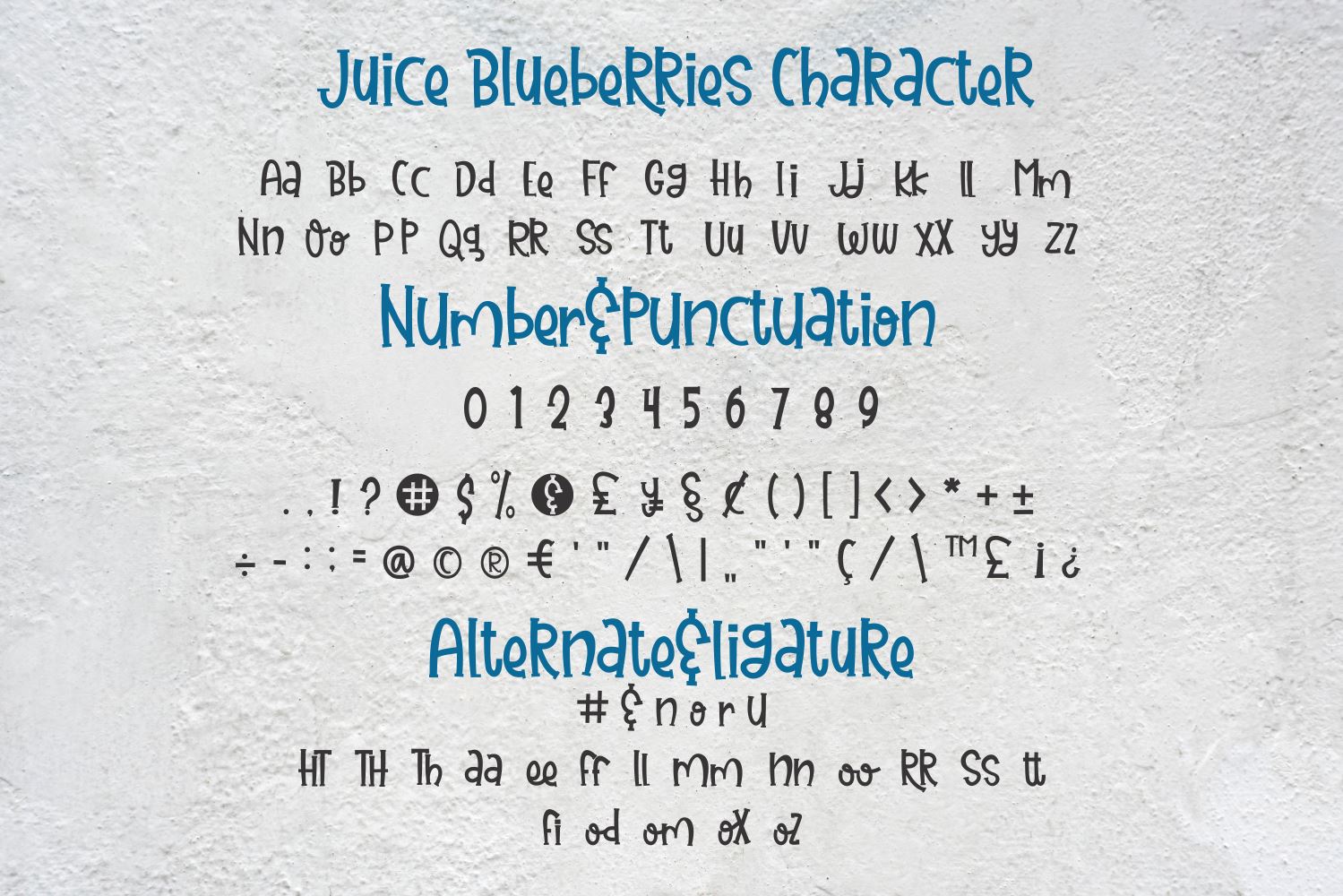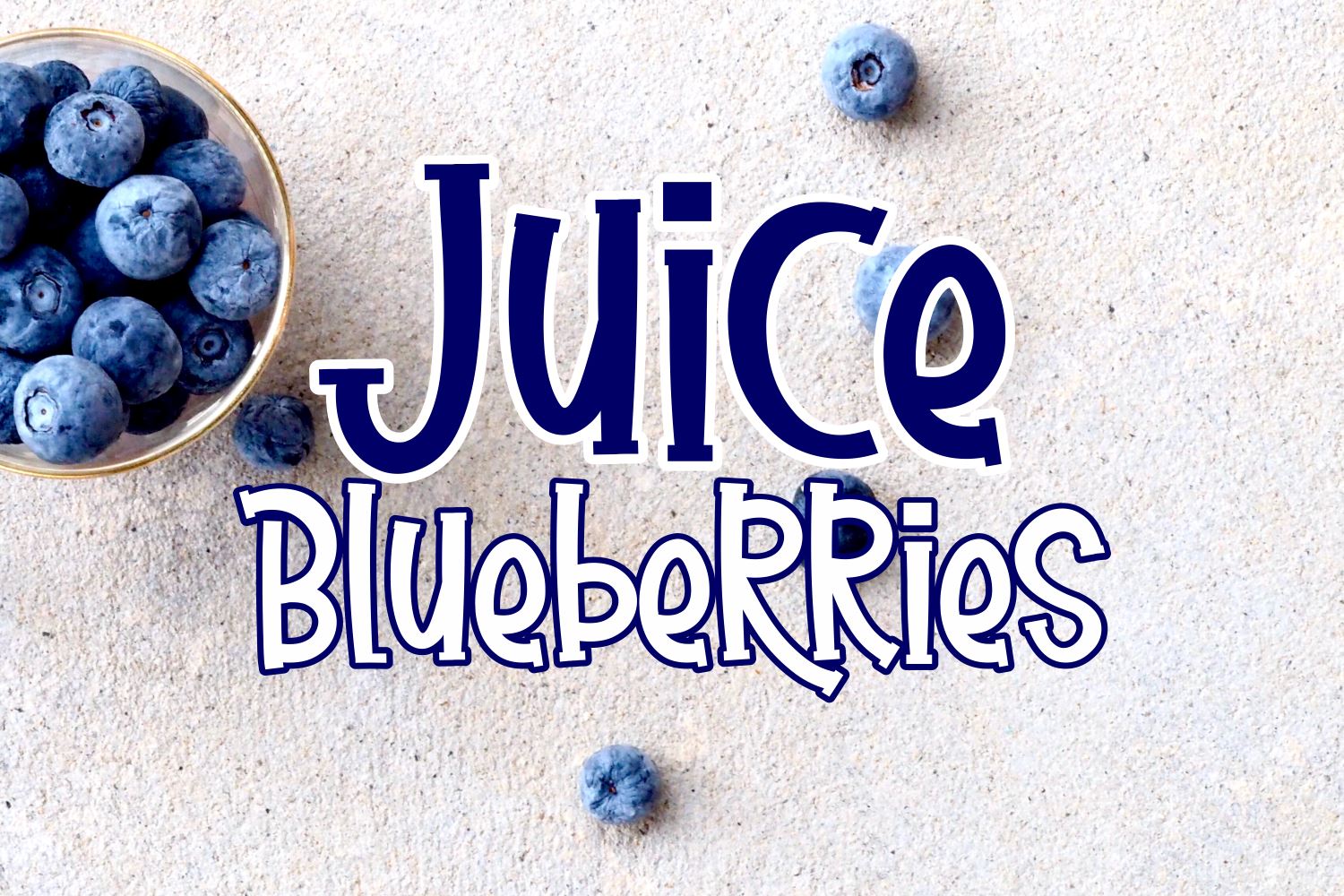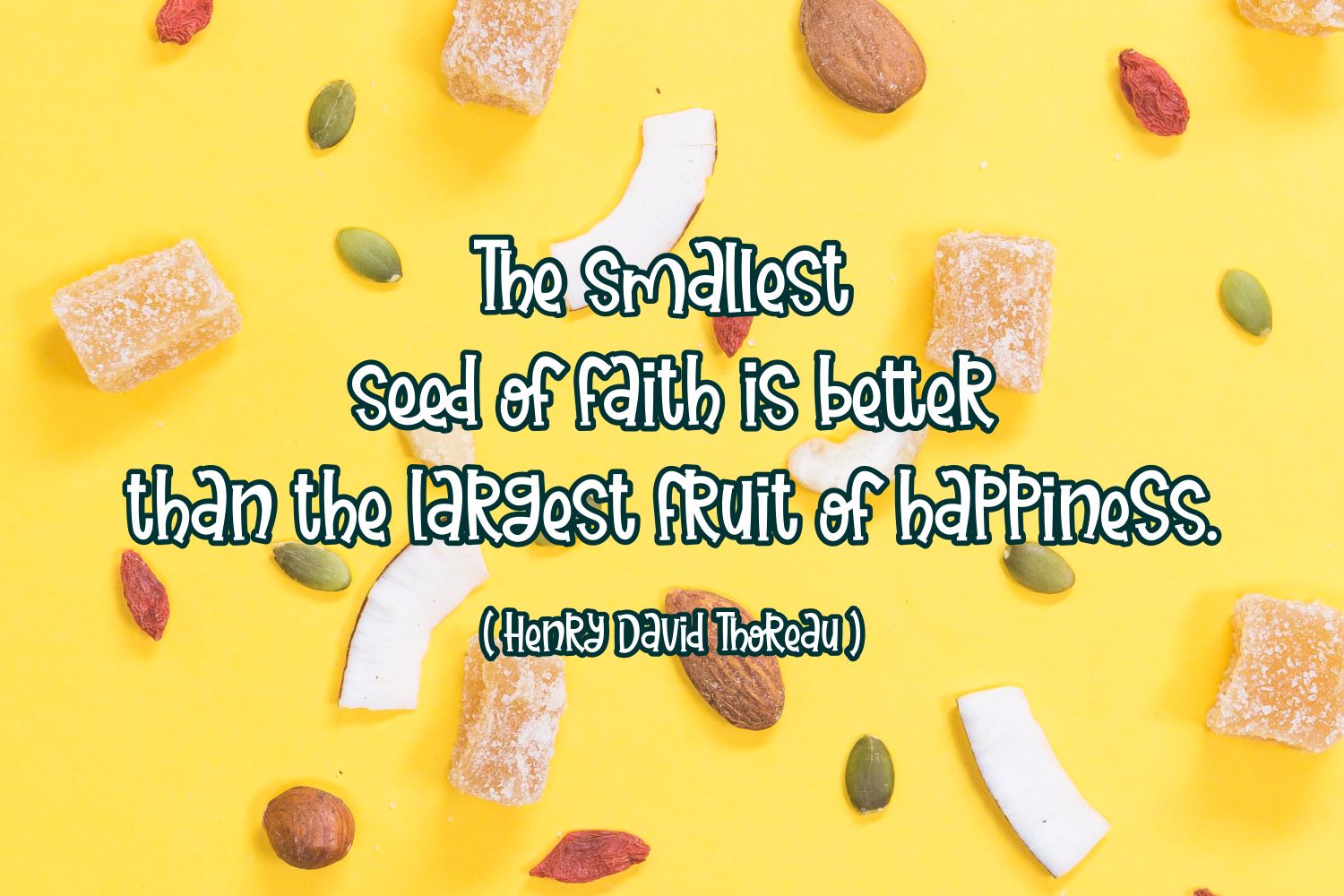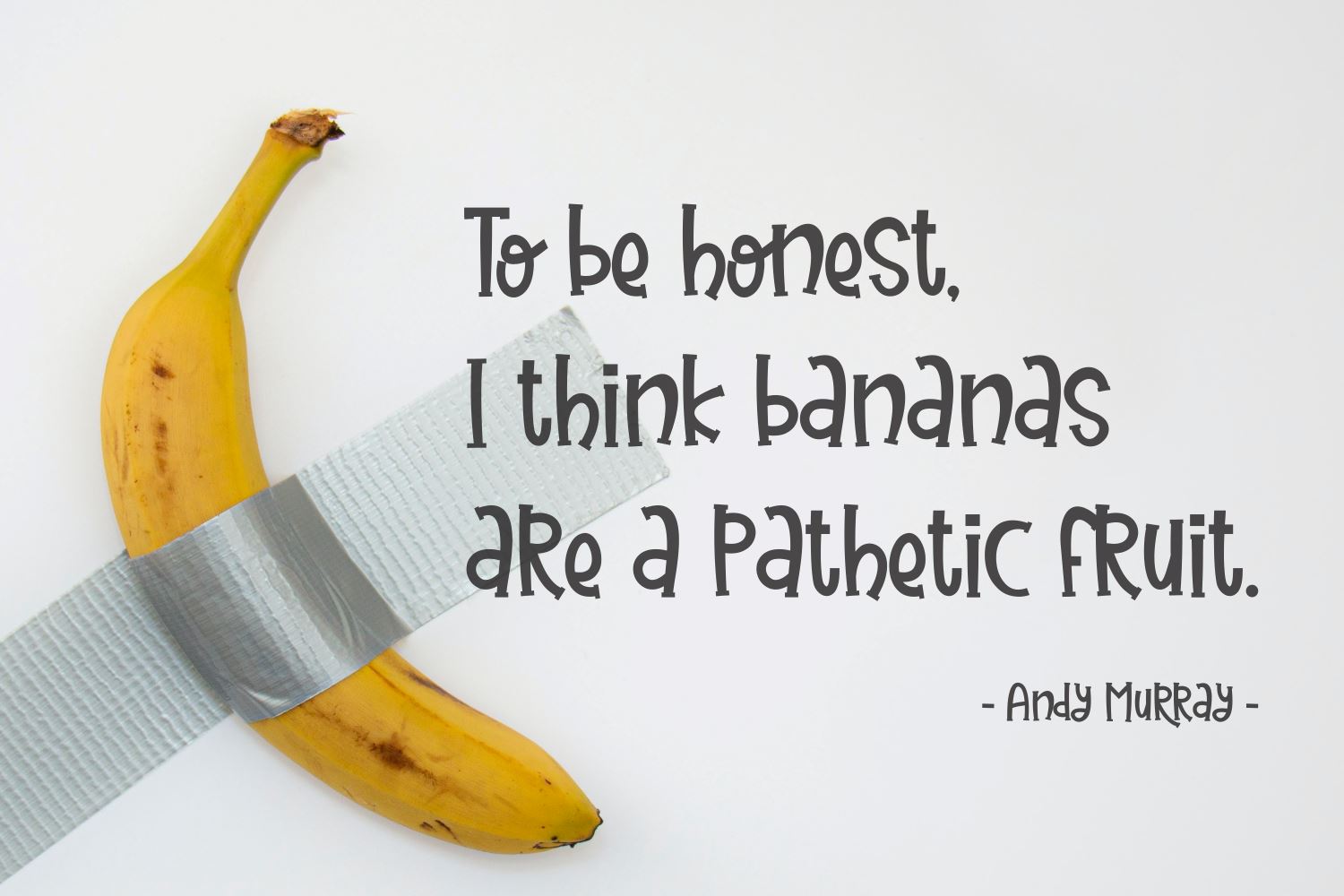
HomeScript FontsJuice Blueberries Script Fonts Juice Blueberries FacebookXPinterestWhatsApp 1 of 4 ... ... ... ... About Juice Blueberries feels enchanting and authentic. Use this gorgeous and unique display to bring any DIY project to life! DOWNLOAD NOW People also explored Charmel Font A La Carte Font Valentine Memories Font Gifted Font Ballinese Font Qukle Font Wolfstar Font Mosem Font Coffee Winter Font 259 0 TagsJuice Blueberries Previous articleHey GirlsNext articleThe Lady Bear LEAVE A REPLY Cancel reply Comment: Please enter your comment! Name:* Please enter your name here Email:* You have entered an incorrect email address! Please enter your email address here Website: Save my name, email, and website in this browser for the next time I comment. Personal Use Free Historise Personal Use Free Read more about this font Planet Benson 2 Personal Use Free Read more about this font Fakedes Personal Use Free Read more about this font Cokobi Personal Use Free Read more about this font BLOG Best Fonts for YouTube Videos: Make Your Thumbnails Stand Out Best Fonts for YouTube Videos: Make Your Thumbnails Stand Out Choosing the right font can make a massive difference in how your YouTube videos perform.... Fonts That Capture the Spirit of New York City Top 10 Handwritten Fonts That Elevate Your Designs The 10 Best Handwriting Fonts to Add Personality to Your Designs